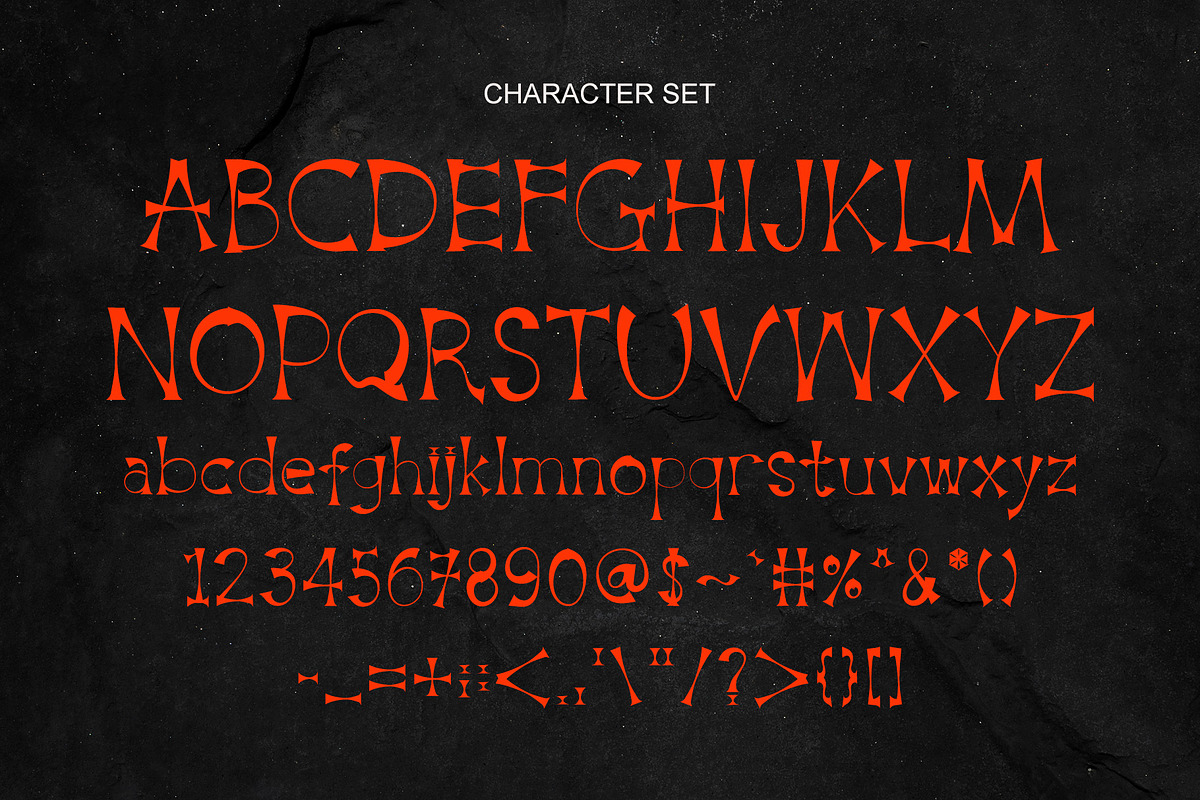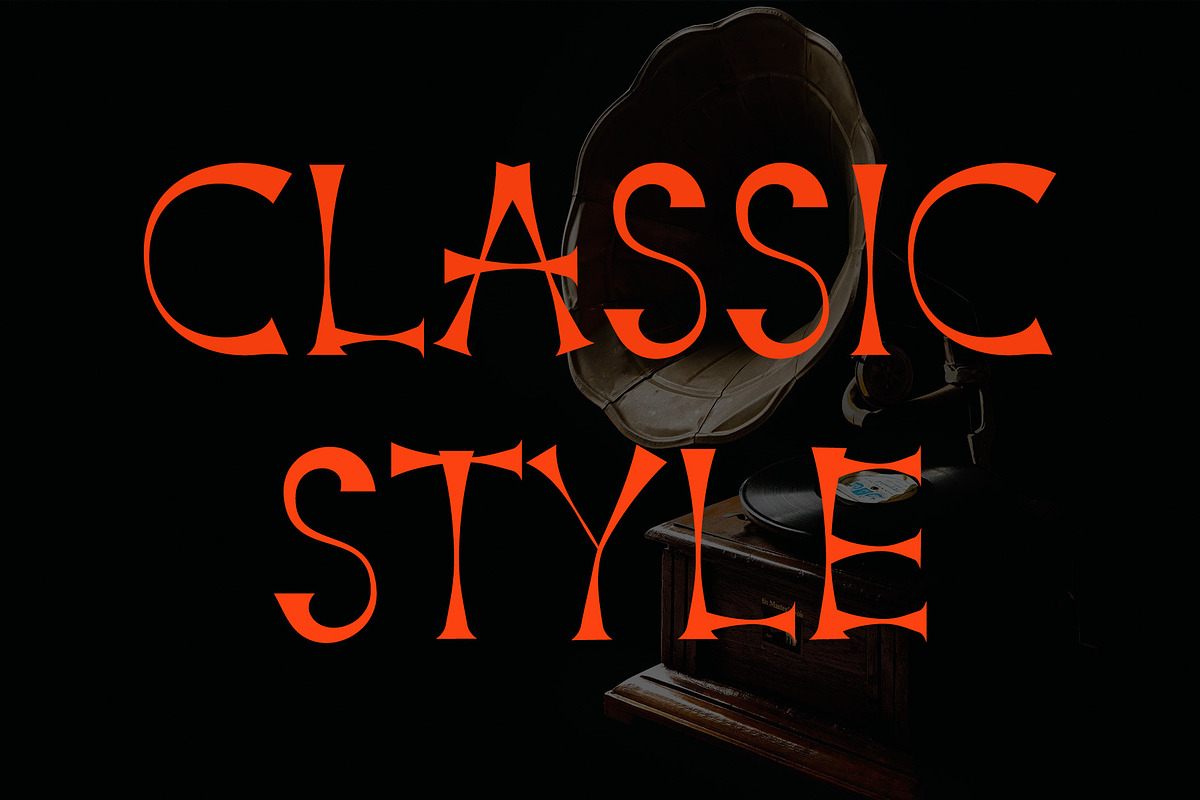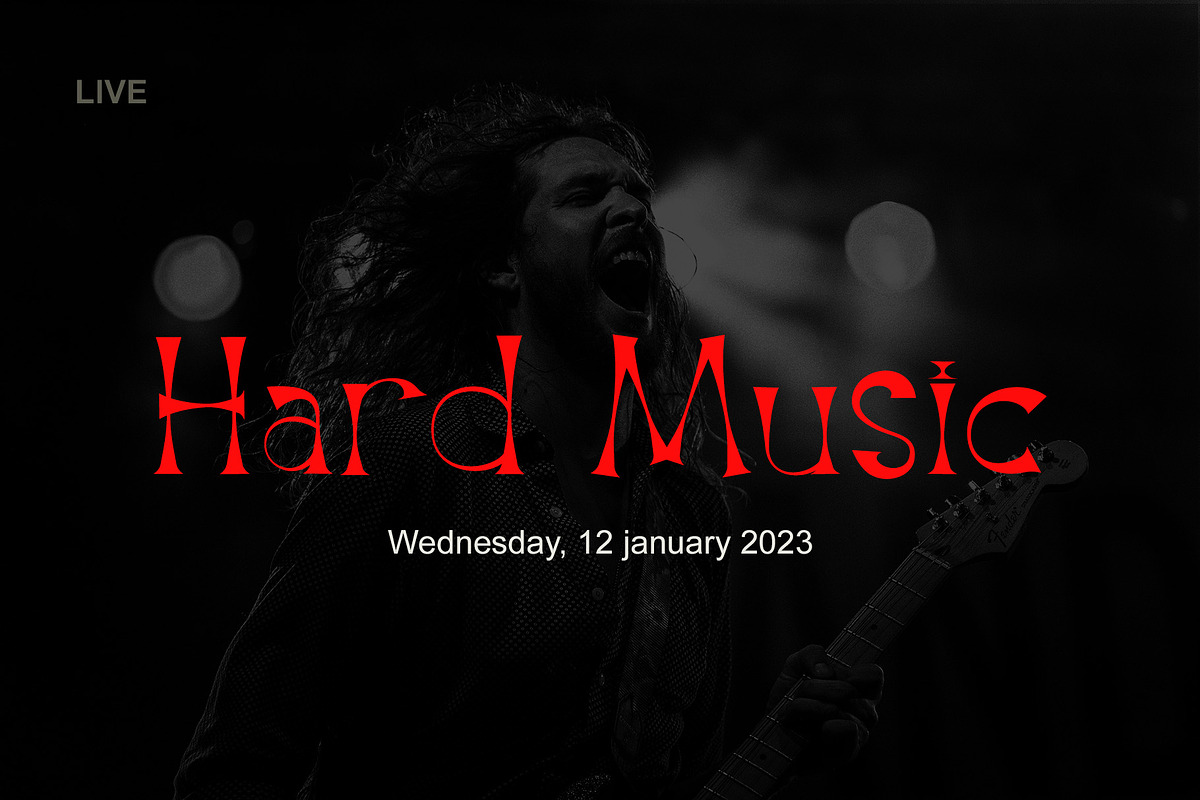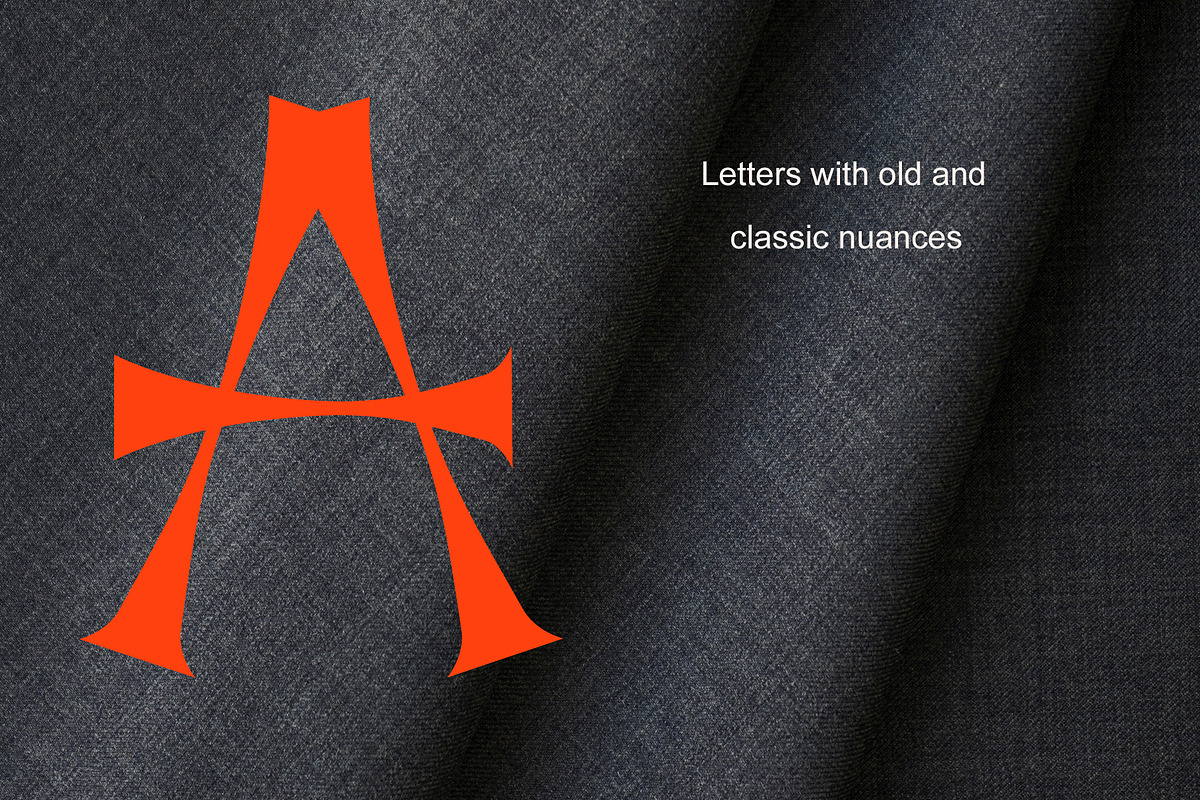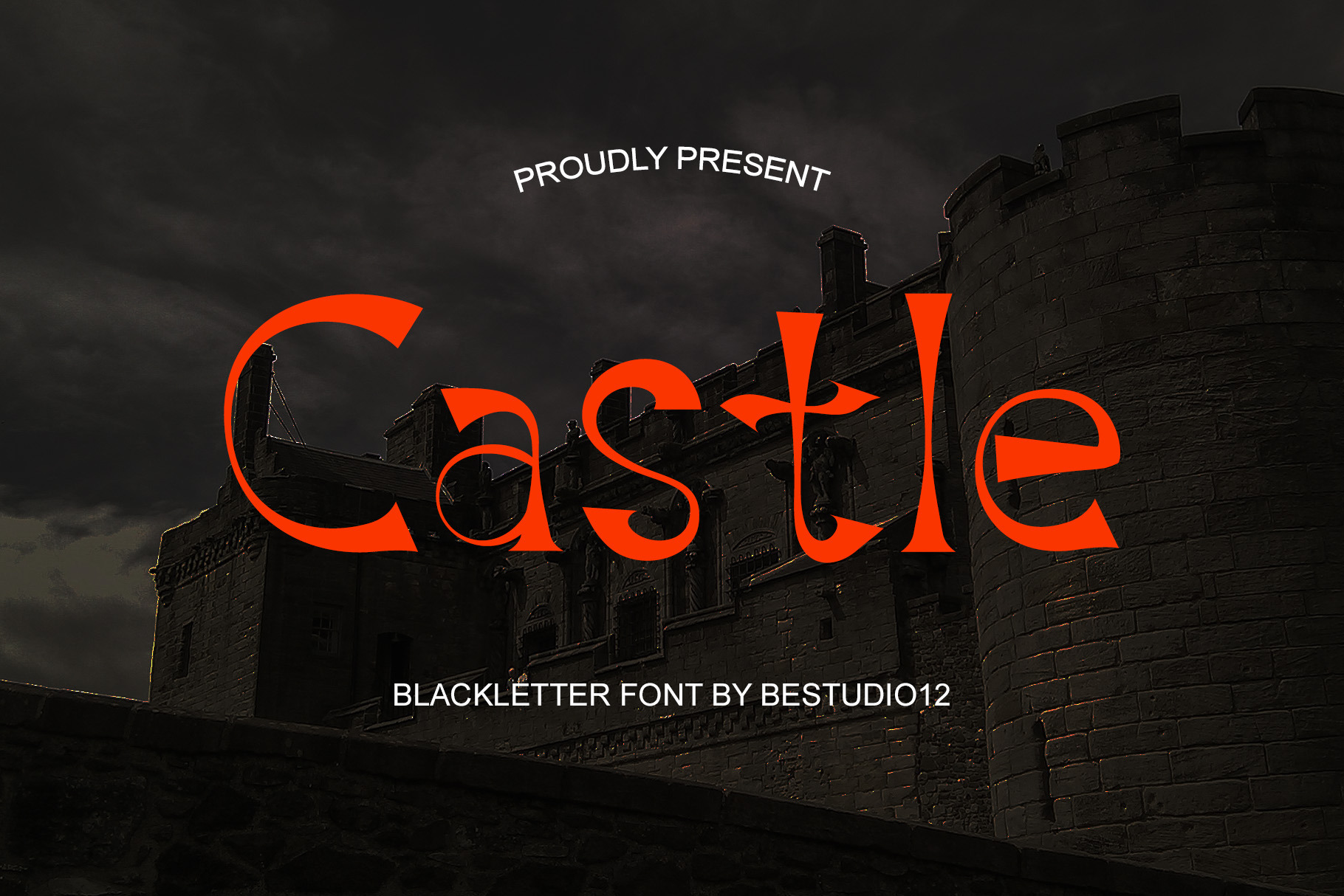
Castle – Classic Blackletter Font
Introducing Castle – a bold, dramatic, and timeless blackletter-style display font with a modern twist. Inspired by medieval lettering and Gothic calligraphy, Castle brings an air of strength, heritage, and bold personality to your designs.
Despite its traditional roots, Castle is crafted to suit modern needs—perfect for cartoons, comic book titles, YouTube thumbnails, Instagram graphics, and entertainment branding. Whether you're designing a product logo, a fantasy game title, or a bold company name, Castle delivers an iconic, attention-grabbing presence.
Its sharp, elegant serifs and strong letterforms make it an excellent choice for both digital and print projects. Bring your content to life with a font that blends historical charm with creative energy.
Ideal For:
Comic and cartoon titles
YouTube and streaming graphics
Instagram, Facebook, and Twitter posts
Entertainment branding and logos
Video thumbnails and intros
Product and packaging design
TV shows and movie posters
Fantasy games and book covers
Company and brand name typography
Give your next design a noble and powerful voice with Castle – where classic meets contemporary.